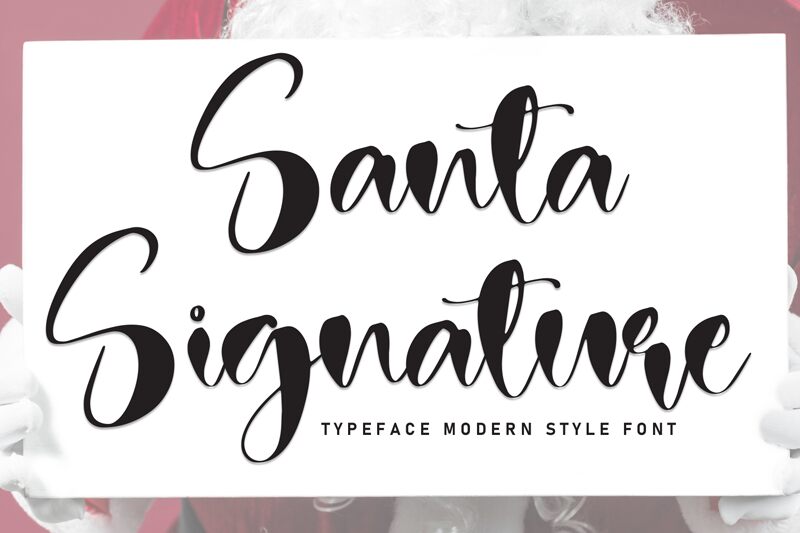
Santa Signature
Santa Signature font by Scratchones is a free brush handwriting typeface that brings an expressive design to the table. Its flowing appearance is elegant, decorative, and sophisticated which takes its branding potential up a notch. This artistic display font makes a great tool for personalized designs that can be made extra special.
Use Santa Signature for logotype design, T-shirt artworks, wall art, labels, and packaging. This product will also look totally fab in invitations or greeting cards, social media posts and stories, video intros/outros and captions.